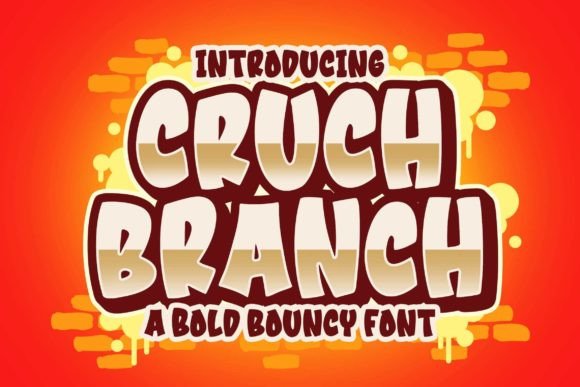
Enter the captivating world of Crunch Branch, a font family that exudes boldness and bounce, ready to infuse your creative projects with an irresistible charm. Its playful and energetic nature makes it the perfect choice for book covers that demand attention, children's books that spark imagination, comics that transport you to fantastical realms, posters that burst with vibrancy, packaging that entices and engages, merchandise that exudes uniqueness, logo designs that leave a lasting impression, and countless other projects waiting to be transformed.
With Crunch Branch by your side, you'll effortlessly create designs that resonate with your audience, leaving them captivated and eager for more. Its playful and inviting curves, reminiscent of a playful cartoon, infuse your work with a sense of lightheartedness and whimsy that's sure to leave a lasting impression. Whether you're a seasoned designer seeking to elevate your projects or a creative enthusiast seeking a font that matches your vibrant personality, Crunch Branch is your perfect companion.
Immerse yourself in the infinite possibilities that Crunch Branch presents. Unleash your creativity and embark on a design journey that yields exceptional results. From book covers that transport readers into magical worlds to merchandise that embodies your brand's unique identity, Crunch Branch empowers you to tell your story with unparalleled flair.
Don't settle for ordinary fonts that blend into the background. Embrace the extraordinary with Crunch Branch, the font that ignites imagination and propels your designs to new heights. Let your creations dance off the page, captivating your audience and leaving them begging for more.